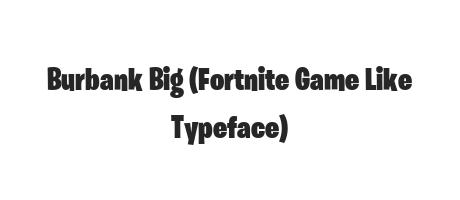
Burbank big condensed light font free download. Burbank big regular light download font. Commercial added on nov 09 2020. Burbank big condensed font is a black font that is famous for its bold and regular weight.
It is a long font family that comprises many styles and classes, including burbank big condensed black, burbank big regular, and many more. Burbank is free to download for personal use. Futura beyaz italic download font.
The font burbank big condensed bold is also perfect for branding projects homeware designs product packaging or simply as. Check it for free with typograph. About the font burbank big condensed bold.
Free fonts often have not all characters and signs, and have no kerning pairs (avenue ↔ a venue, tea ↔ t ea). Burbank is a font that is reminiscent of a fortnite game font and is used to create fortnite related content. Create date february 19, 2021.
Neutra text light alt download font. Burbank big condensed black dafont july 20, 2020 january 4, 2021 block fonts bold fonts comic sans fonts free fonts fun fonts graffiti fonts. It was designed by tal leming.
29 professional burbank big condensed black fonts to download. Burbank font is a display typeface that is a bold gaming font. Burbank big condensed light is free for personal use only.
Burbank big regular black download font. Onlinewebfonts.com is internet most popular font. It came into the frame after it was featured on the titles of one of the notable games, fortnite.
Download burbank big condensed font for free. The font family is burbank big condensed. Other fonts from the burbank big family:
About the font burbank big condensed light. Belongs to one the basic category. Burbank big condensed font free download.
History of burbank big condensed fon. You can use the burbank big condensed light to create interesting designs, covers, shop and store name and logos. Download burbank big condensed font free from fontspace.io now.
Tal leming burbank big condensed black house industries font software license agreementhouse industries products may not be returned or exchanged after the fonts have been installed. It was designed by tal leming many years ago, and after its extreme popularity, it evolved into different weights/styles. 28free burbank big regular bold fonts big2 styleshideshowadd to favoritedownload.
Many years ago and after extreme. Dowonload this fonts for graphic design , web fonts. You can use the burbank big condensed bold to create interesting designs, covers, shop and store name and logos.
The burbank big condensed black font is a famous typeface that belongs to the family of ‘burbank big condensed.’. Burbank big regular bold download font. Burbank big condensed font is the clean and modern font typeface that creates a decent appearance very quickly and easily.